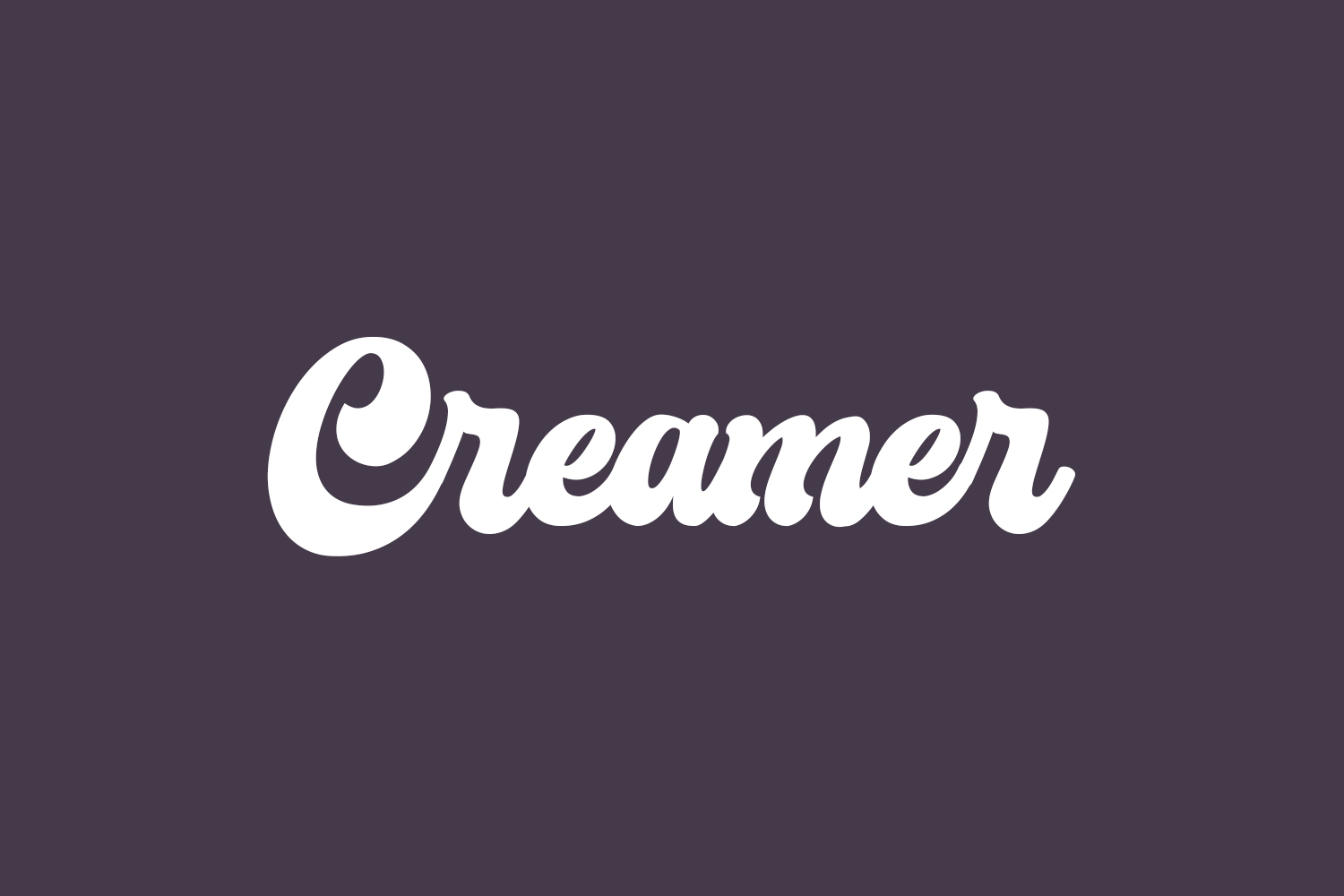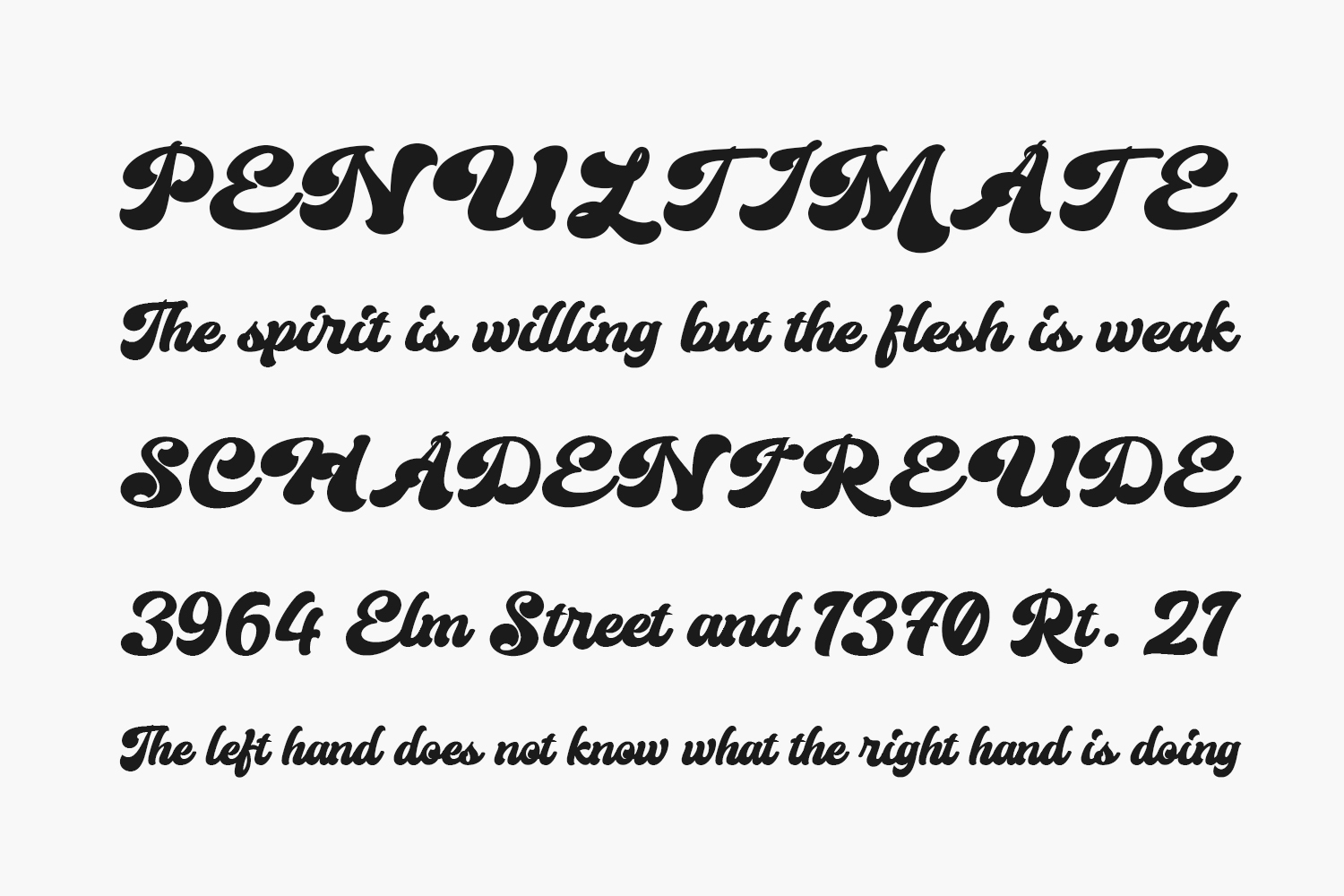
Creamer Free Font is a gorgeous and bold handwritten font, crafted to give your headlines and logotype projects a stylish touch. This font reads as strong, confident, and dynamic and can add tons of nostalgic character to your designs. Creamer Free Font was designed by Creativework69 Studio and is free for personal use only. Please purchase the full version for commercial use.